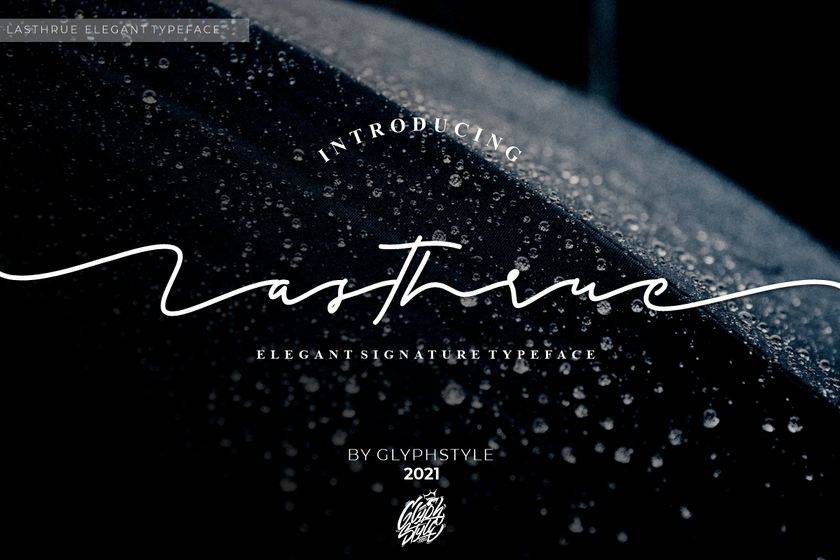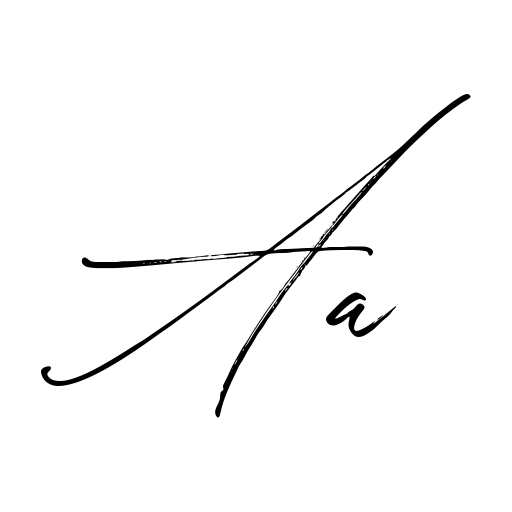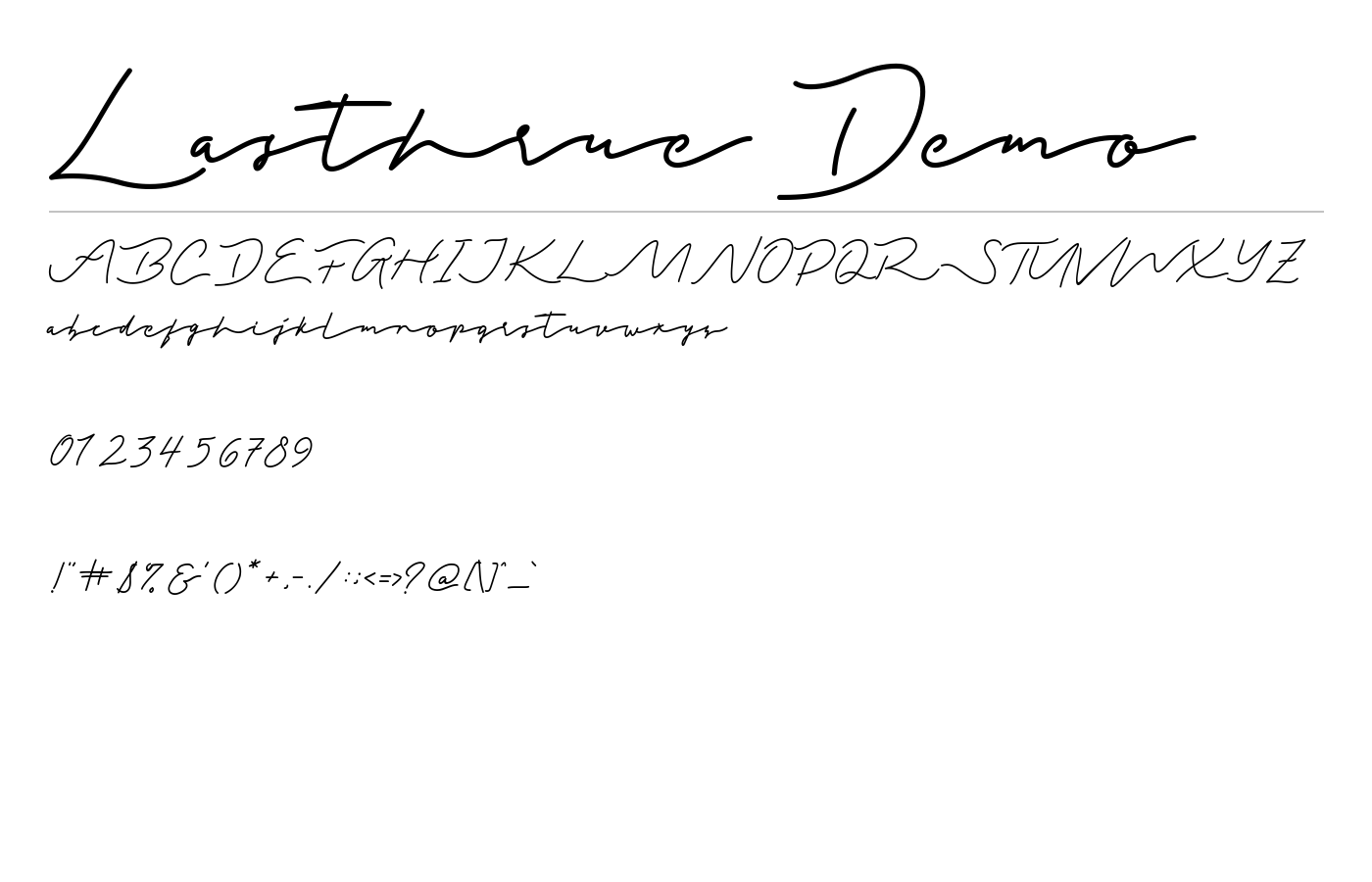
Lasthrue is a delicate, elegant script font with thin, flowing strokes that mimic natural handwriting. Its slender letterforms and smooth curves give it a graceful, airy feel, making it perfect for sophisticated branding, invitations, and editorial headlines where a touch of personal style and refinement is desired. This font works beautifully in contexts that require a soft, artistic, and refined look.
Lasthrue Font
| Designer | GlyphStyle |